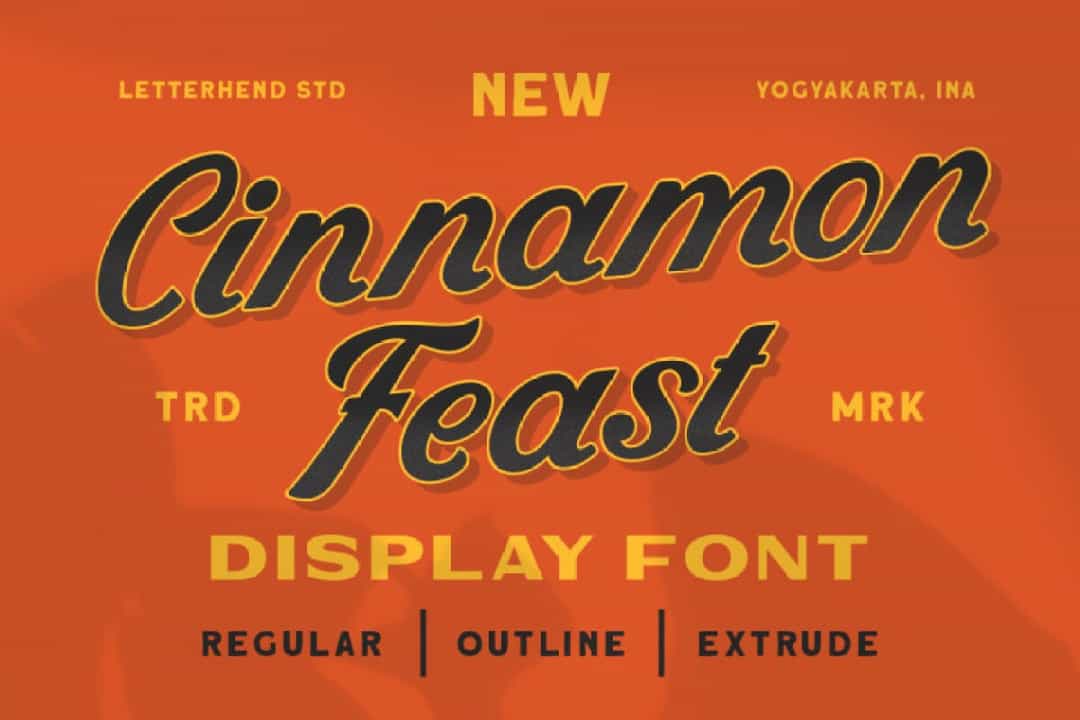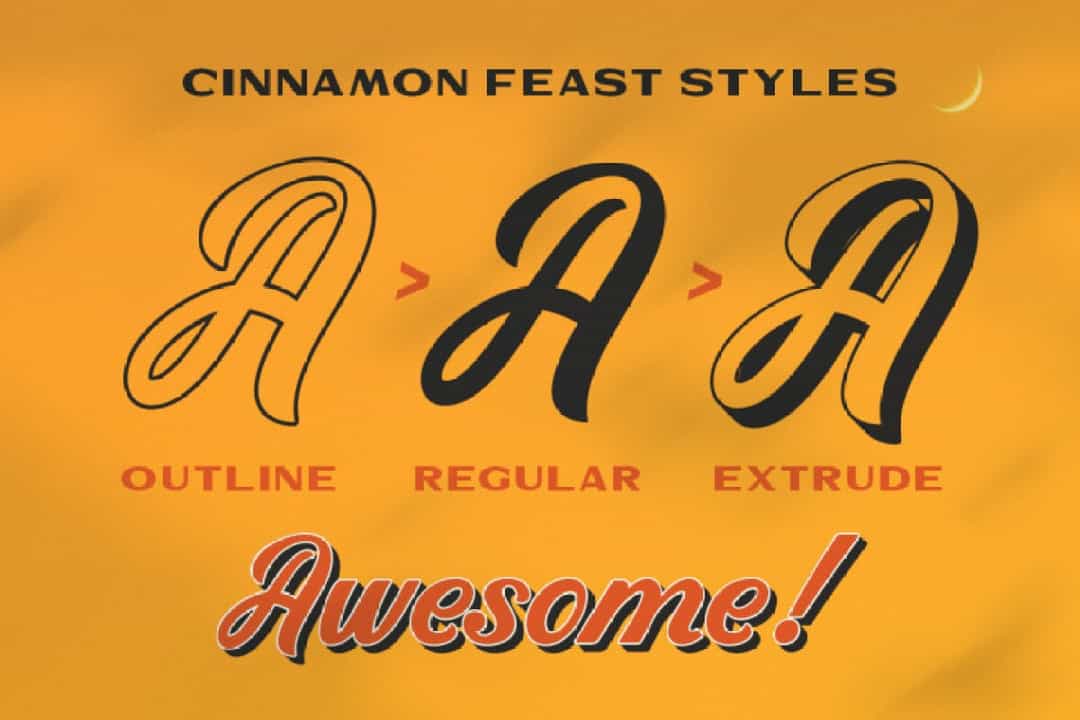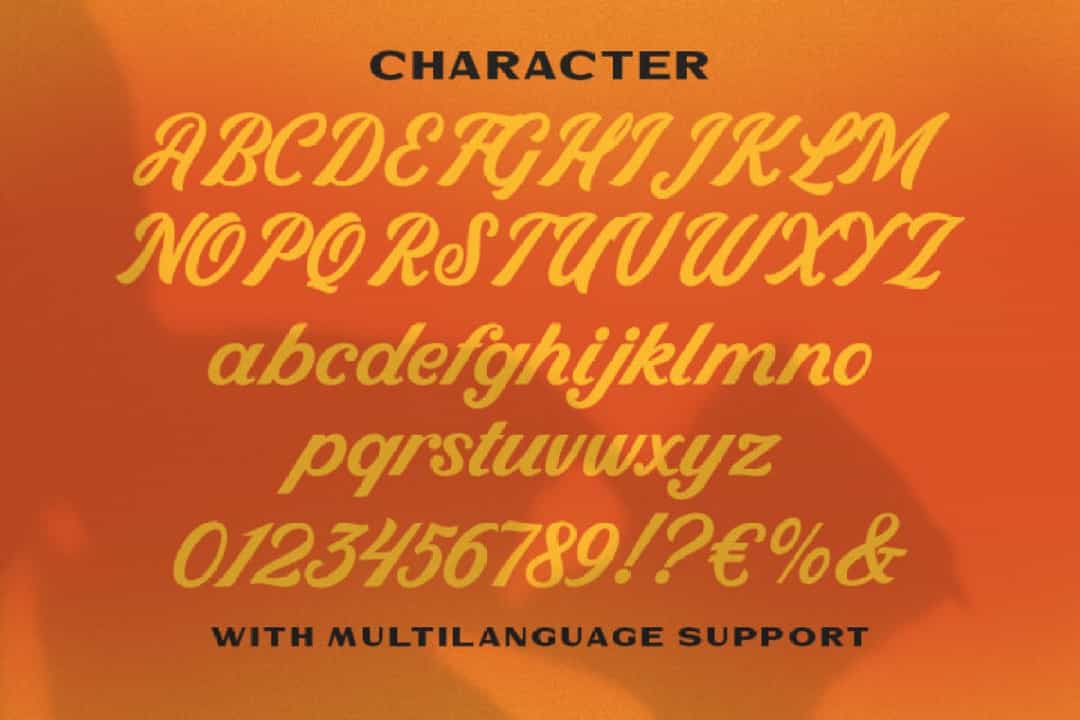
Cinnamon Feast’s sophisticated script design exudes old-world charm in display font form, recalling vintage branding and signs with its graceful curves and timeless timelessness reminiscent of logos, packaging or decorative elements from decades past.